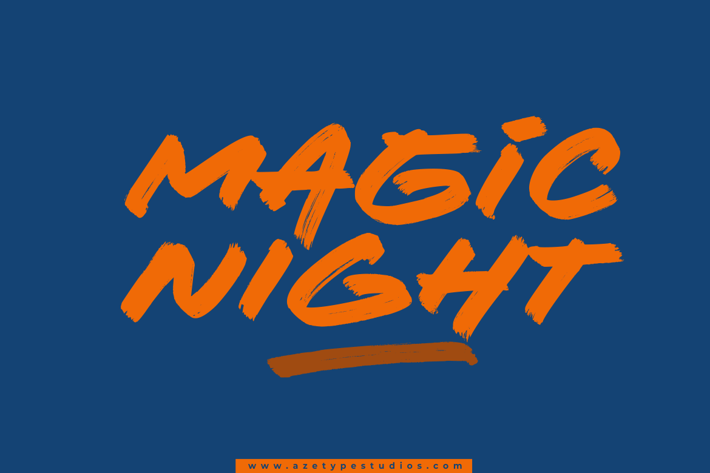
Magic Night
Introducing, Magic Night is An Organic Brush Font with the brush style suitable for your design project needs, such as; wild theme, adventure, social media posts, your quotes, overlays on images, strong logos, posters, print needs, website banners, and more.
A set of uppercase and lowercase glyphs
Number, symbol, and punctuation
Multilingual accent ( ́ ̂ ̀ ̊ ̈ ̃ ̄ ̌ ̆ ̨ ̧ ̇ ̋ ̒ ̦ ̍ ̶ )
Some multilingual glyphs (ÆØŒæðøœß¡¿)